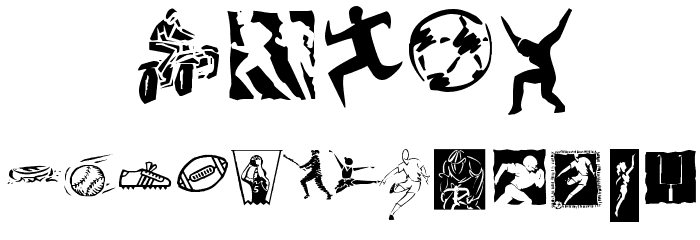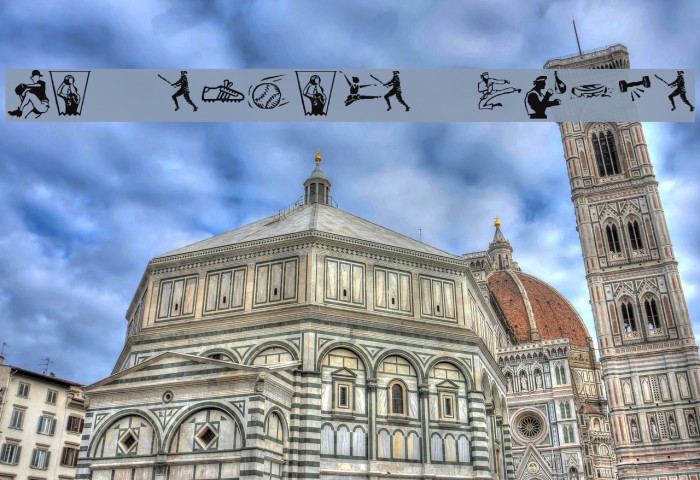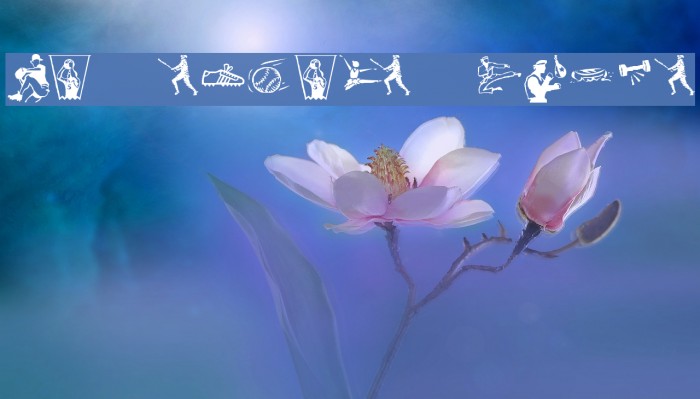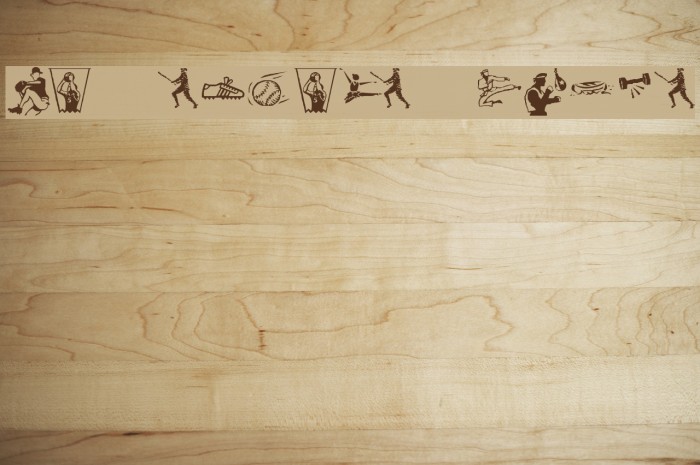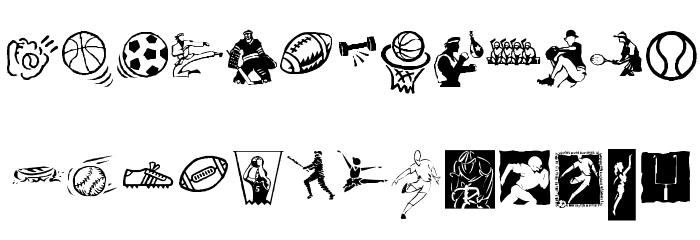
KR Sports Dings Font
This collection features a variety of sports-themed dingbats, showcasing dynamic illustrations of different athletic activities. Each symbol captures the essence of sports through bold, energetic designs, including depictions of balls, athletes in motion, and various sports equipment. The style is graphic and illustrative, with a playful yet impactful aesthetic that emphasizes movement and action. These symbols are ideal for adding a sporty flair to projects, offering a unique way to visually represent sports themes without using traditional text.
A dynamic set of sports-themed dingbats with bold, energetic illustrations.
• Proposed Projects: Ideal for sports event posters, athletic apparel designs, sports-themed websites, and educational materials about sports.